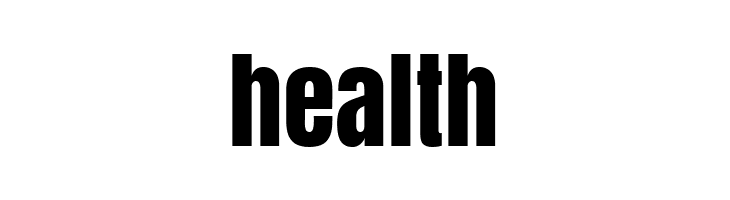
A bold, decorative font with heart motifs integrated into each character.
A bold, decorative font with floral motifs integrated into geometric letterforms.
A bold, modern font perfect for impactful headlines.
A classic serif font with elegant details and balanced proportions.
A 3D outline font with a modern, geometric wireframe design.
A modern sans-serif font with clean lines and excellent readability.
A bold, fragmented font with an abstract and edgy design.